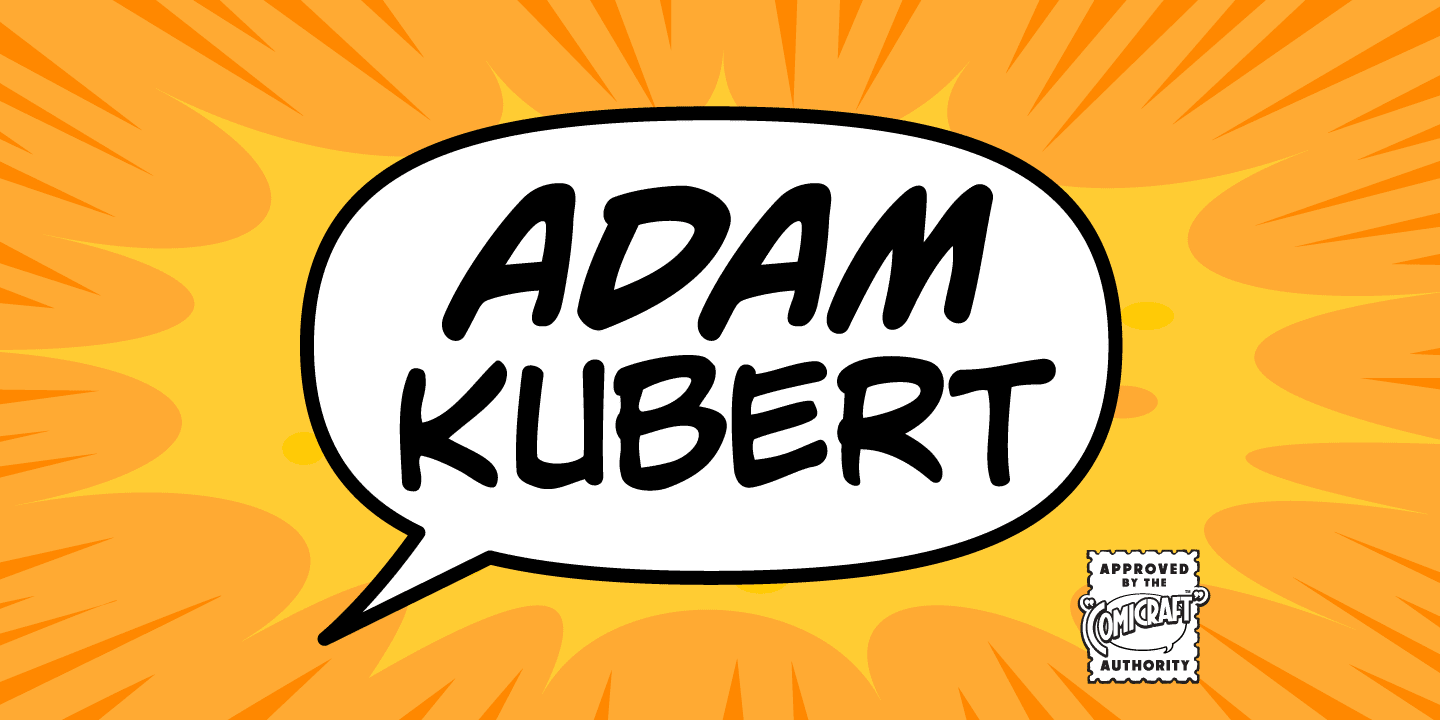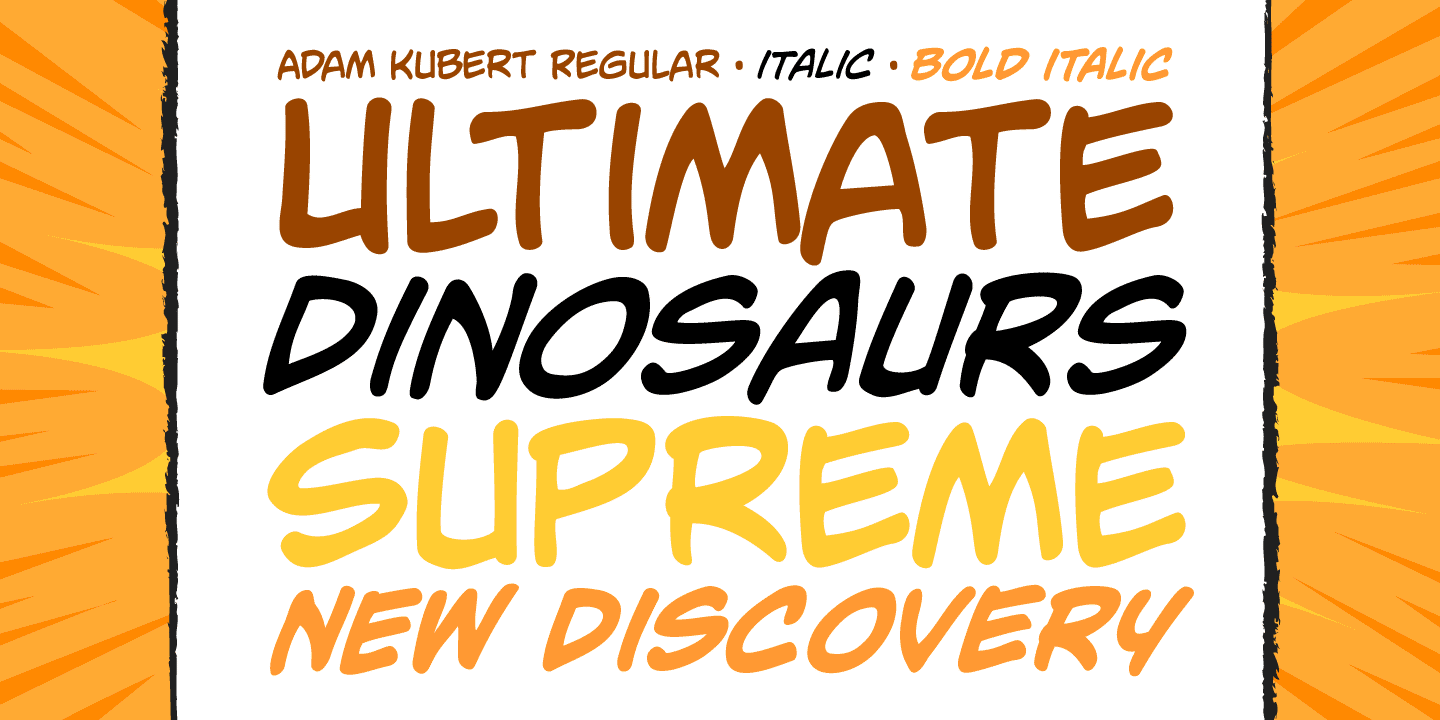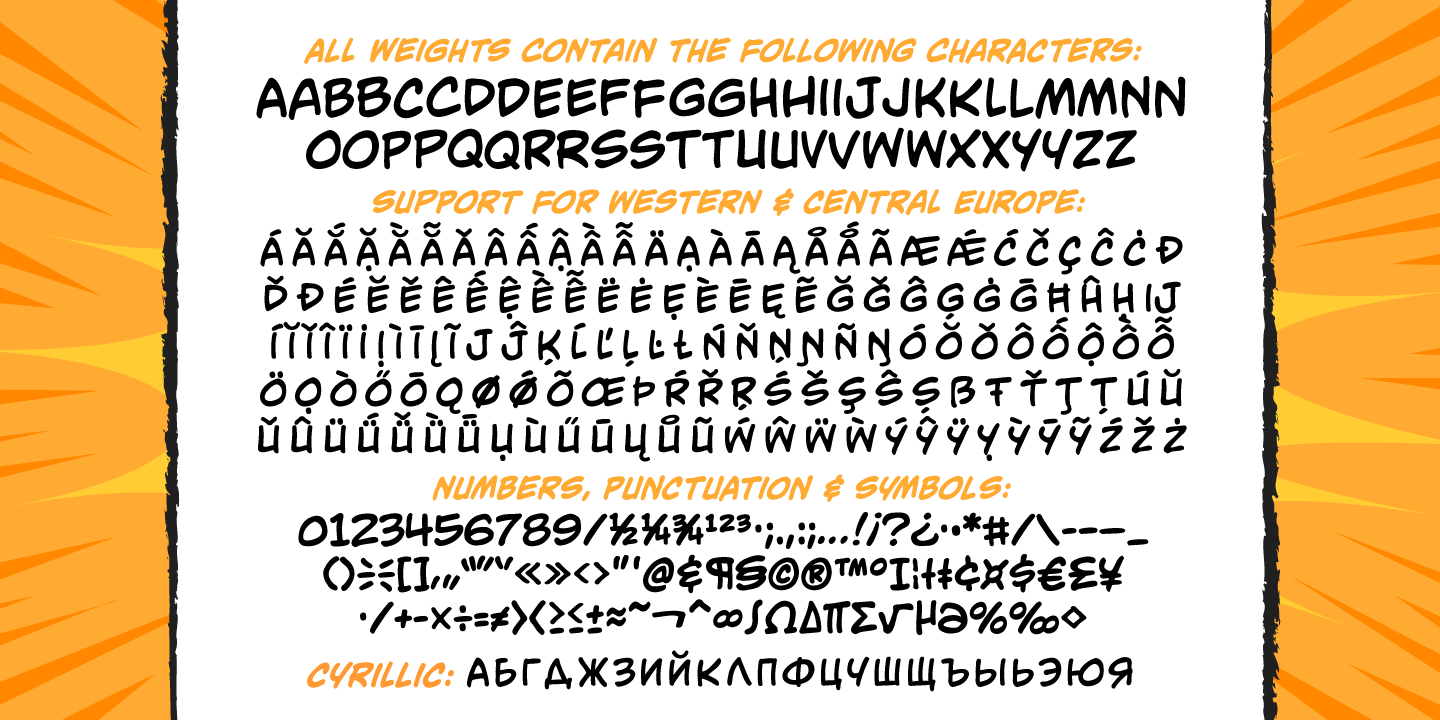
Adam Kubert
Font Family by Comicraft Fonts
Buy NowJoe Kubert's son Adam has a story or two to tell as well; the AdamKubert font, based on Adam's own pen lettering in BATMAN/PREDATOR, was created by Comicraft for Marvel's ULTIMATE X-MEN series.